10 Fonts Like Brown Sugar
Looking for fonts like Brown Sugar? Today we'll share ten fonts from Envato Elements that you can use to replace the Brown Sugar font.
Characteristics of the Brown Sugar Font
Brown Sugar is a modern display font that includes uppercase letters, numerals, and punctuation. It is characterised by elegant and dramatic thick-to-thin transitions in the strokes, with stylised elements in the thin strokes of some characters. The Brown Sugar font is best suited to headings rather than body text.
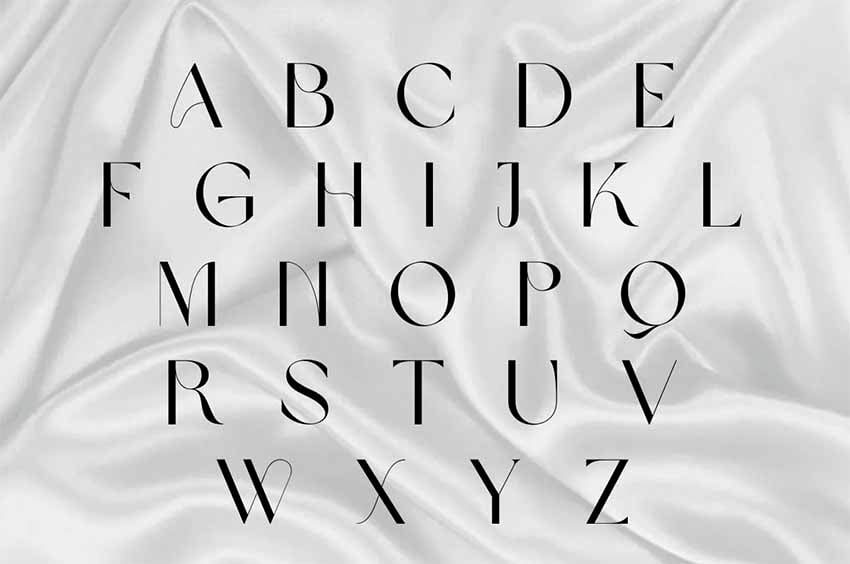
10 Brown Sugar Font Similar Options
1. Glamora (TTF, OTF)
When you're looking for a font similar to Brown Sugar, check out Glamora, another gorgeous modern font with similar dramatic thick-to-thin stroke transitions to Brown Sugar. Glamora includes uppercase letters, numerals, and punctuation.
2. Camaro (TTF, OTF)
It doesn't get more elegant than Camaro, an elegant and eye-catching display font that'll make your design stand out from the pack. This wonderful font is perfect for posters, web design, branding, titles, and more.
3. Caprise (TTF, OTF)
Looking for a bold and stylish font for an upcoming project? Look no further than Caprise. This stunning serif has the same dramatic strokes as Brown Sugar but offers cleaner lines.
4. Honey Mustard (TTF, OTF)
Honey Mustard is all about style, so use this fabulous font to make a statement. This serif font offers uppercase letters, numerals, and punctuation.
5. Alexia (TTF, OTF)
Need a standout font? Check out the awesome Alexia, a font with a signature style that's a great choice for branding, logos, titles, web design, and more.
6. Berry Bean (TTF, OTF, WOFF)
When you need a decorative font with plenty of personality, choose Berry Bean, a gorgeous one-of-a-kind sans serif font that offers uppercase characters, numbers, and punctuation.
7. Blacke Brown (TTF, OTF)
Blacke Brown is a fabulous modern font that contains uppercase letters, numbers, and punctuation, and that's all you need when you're looking for a terrific display font for special projects.
8. Claresta (TTF, OTF)
Claresta is just the stylised font you've been looking for. This charming display font is a bit more decorative than some of the others featured here, so a little goes a long way. Use it for your titles, headings, posters, signage, etc.
9. Playa del Amor (TTF, OTF)
Understated elegance is just one way to describe Playa del Amor. This stylish font offers great contrast in stroke transitions from thick to thin. This is a one-of-a-kind display font that's bound to make your next project shine.
10. Cherilyn (TTF, OTF)
Elevate your designs with Cherilyn. This fabulously creative font includes uppercase characters, numbers, and punctuation. Just like Brown Sugar, you can use this one to create eye-catching titles, posters, headings, and more.